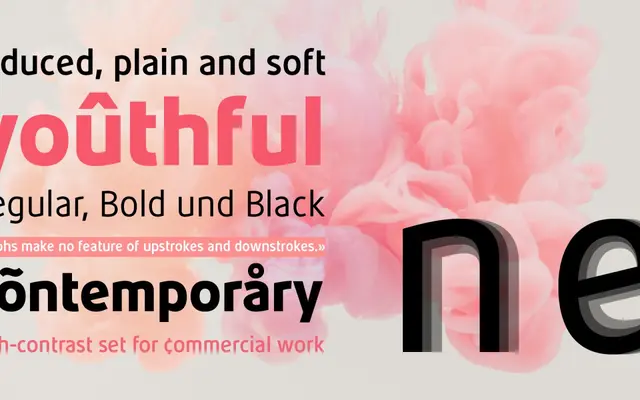
Minora
Serpentype · Alex Meier
A three-weight contemporary sans serif with open, reduced glyph forms, developed by Alex Meier during typeface studies at ZHdK Zurich.
Minora began as a student project at the Zurich University of the Arts and was refined in a shared studio after graduation. The family covers Regular, Bold and Black weights, with open counters and plain, reduced forms that the designer cites as defining attributes. OpenType features include alternate figure sets and fractions, making it practical beyond headline use despite its display billing.
Described as a contemporary sans serif with open, plain and reduced glyph forms, pointing to a geometric or neo-grotesque approach rather than a humanist one.